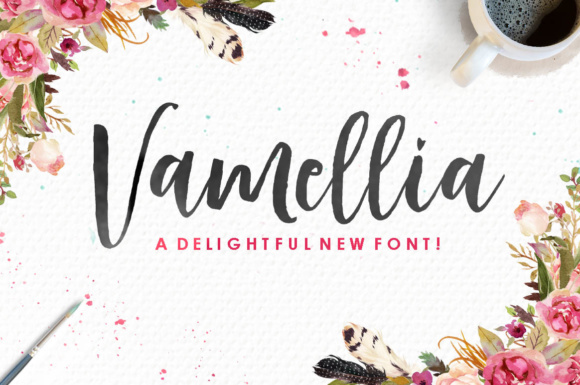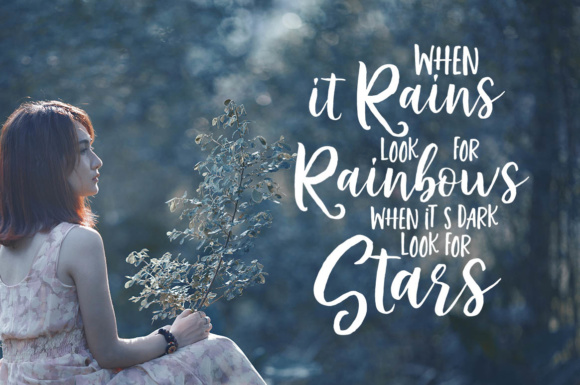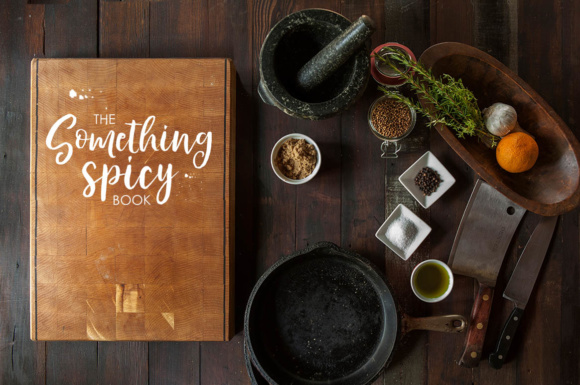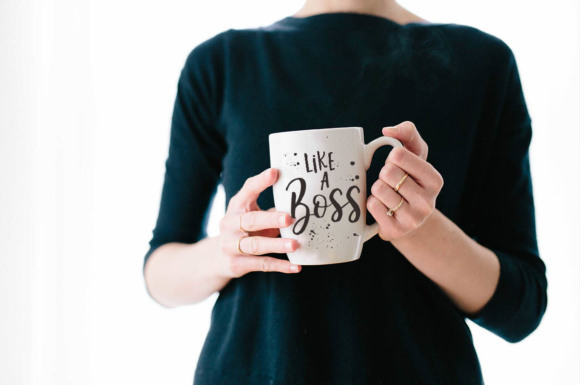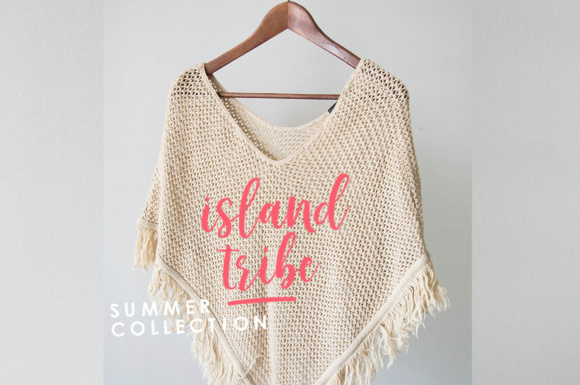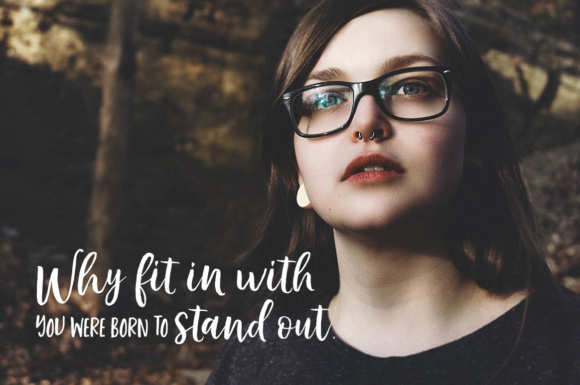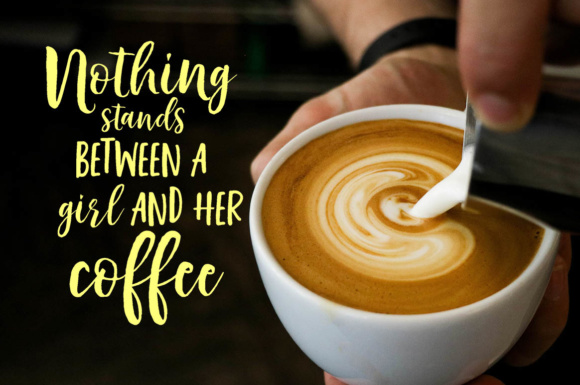
Vamellia Font
About Vamellia Font
Vamellia is a gorgeous font; this brush stroke calligraphy font looks perfectly suited to special event projects, and has a charming country feel to it.